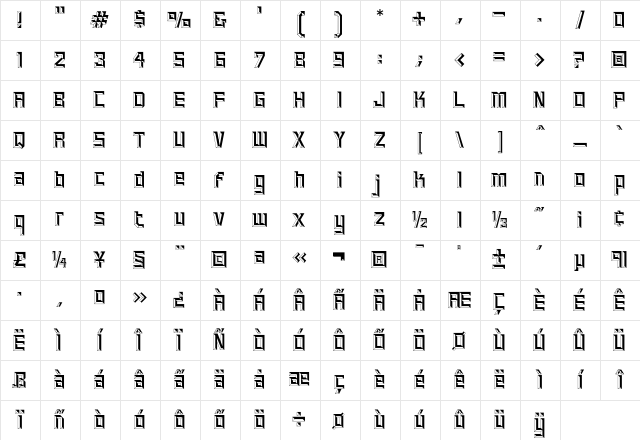
SMCFortKnox Regular
Design Context for SMCFortKnox
SMCFortKnox is a composed and adaptable typeface that performs quietly and consistently across a wide range of design contexts.